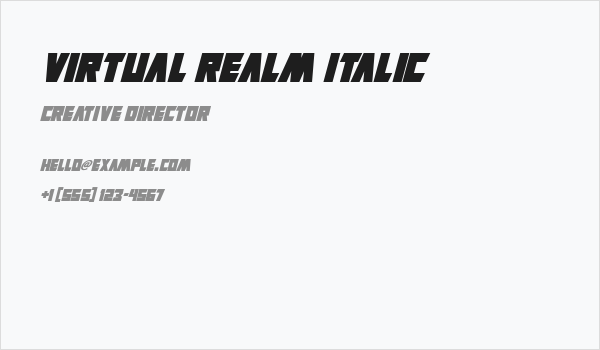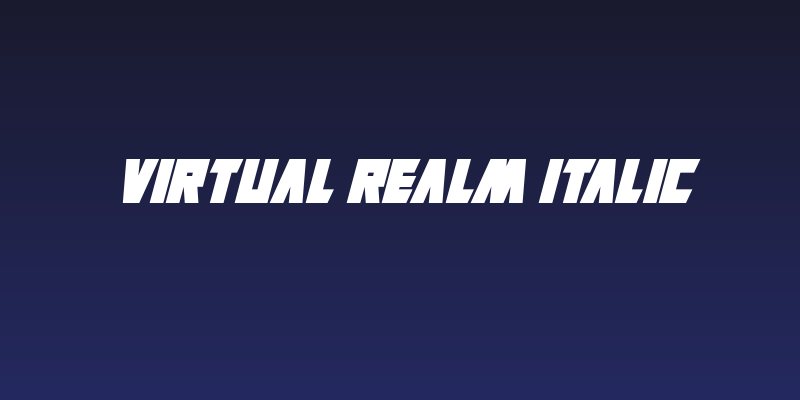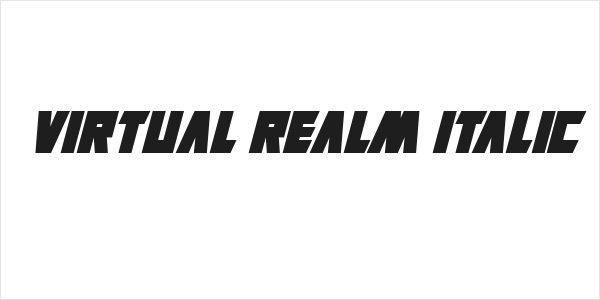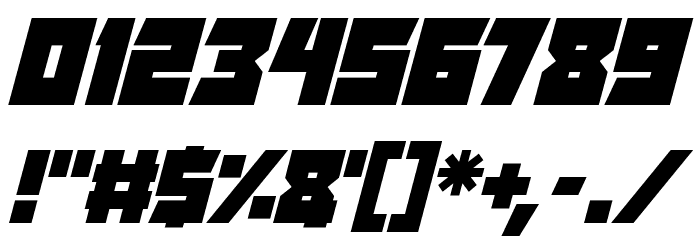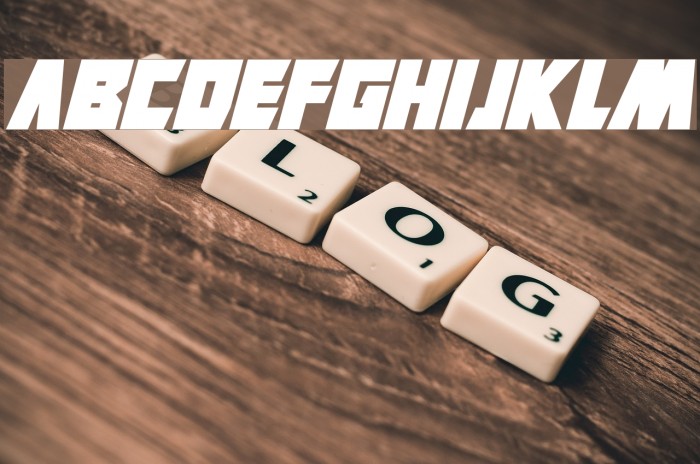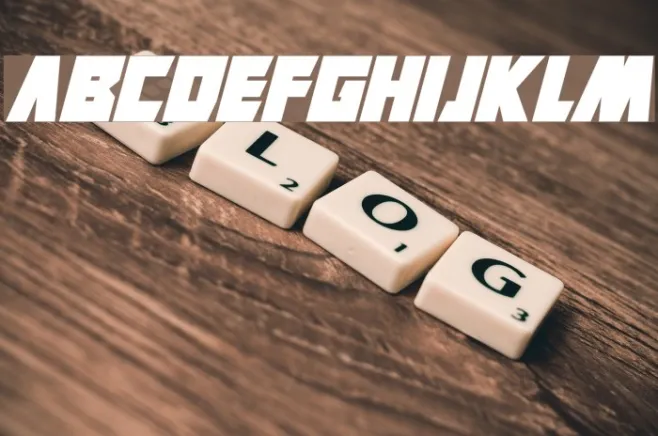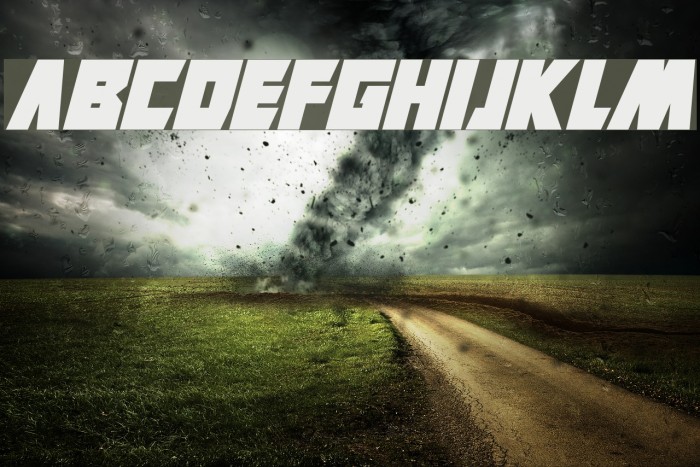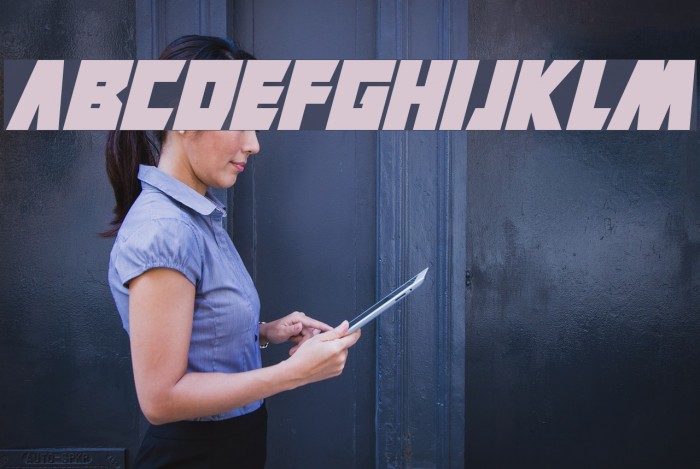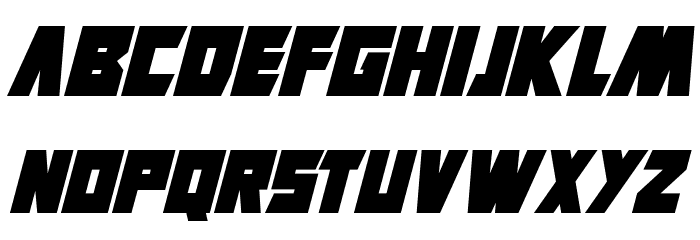
Virtual Realm Italic Font
Virtual Realm Italic Description
This font features a bold and dynamic design with a strong italic slant, giving it a sense of motion and energy. The characters are blocky and geometric, with sharp angles and a futuristic aesthetic. The uppercase and lowercase letters maintain a consistent style, creating a cohesive look. The numbers and special characters follow the same bold and angular design, ensuring uniformity across all glyphs. This font is ideal for projects that require a modern and impactful appearance.
| Proposed Projects | Ideal for video game titles, sci-fi movie posters, tech branding, and sports team logos. |